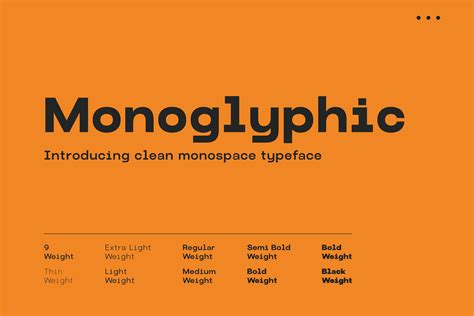
Monospace Sans Serif Font. Web explore free monospaced, sans serif fonts! Looking for monospaced sans serif fonts?
Web roboto mono is a monospaced addition to the roboto type family. Ideal for coding, design & readability, offering clean lines and uniform spacing. Like the other members of the roboto family, the fonts. Web noto sans mono is a monospaced, unmodulated (“sans serif”) design suitable for programming code and other uses. Looking for monospaced sans serif fonts? Web 1 to 15 of 60 results. Web explore free monospaced, sans serif fonts! Click to find the best 48 free fonts in the monospaced.
Web roboto mono is a monospaced addition to the roboto type family. Click to find the best 48 free fonts in the monospaced. Web 1 to 15 of 60 results. Ideal for coding, design & readability, offering clean lines and uniform spacing. Looking for monospaced sans serif fonts? Web explore free monospaced, sans serif fonts! Web roboto mono is a monospaced addition to the roboto type family. Like the other members of the roboto family, the fonts. Web noto sans mono is a monospaced, unmodulated (“sans serif”) design suitable for programming code and other uses.